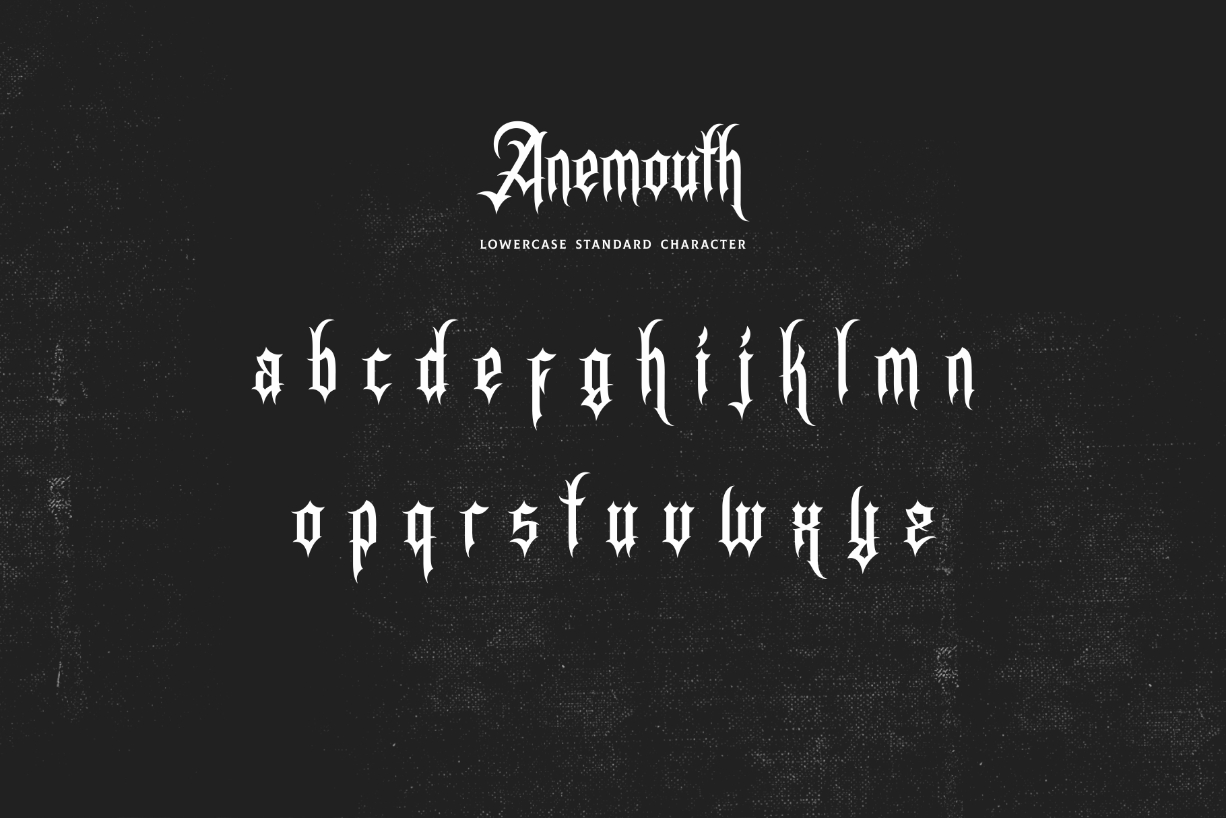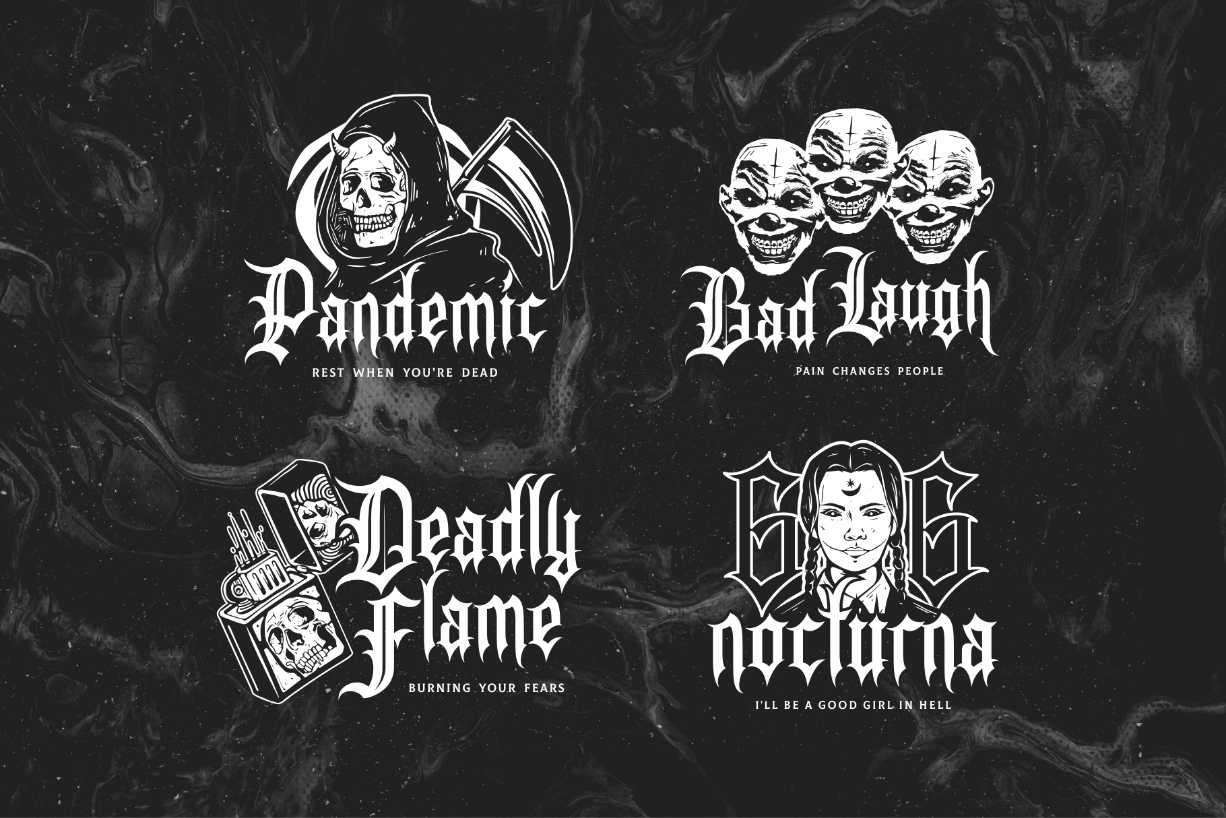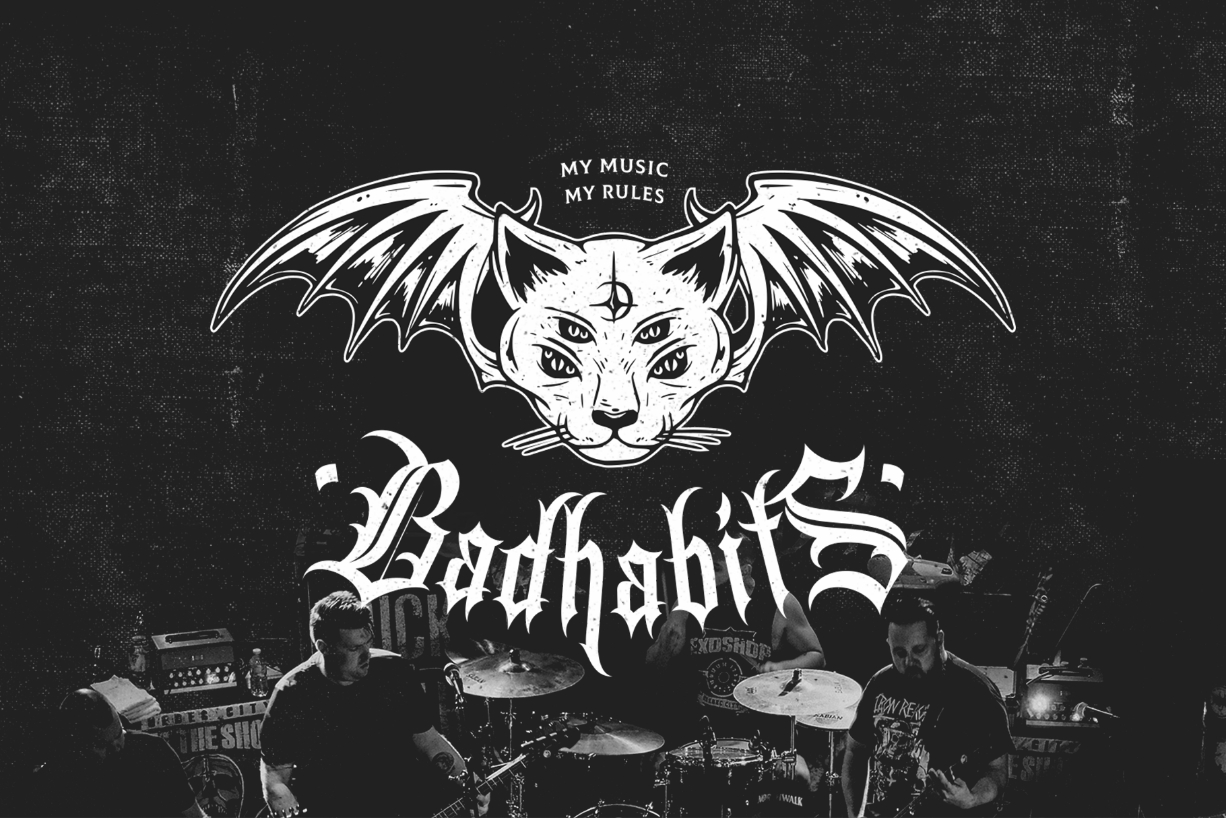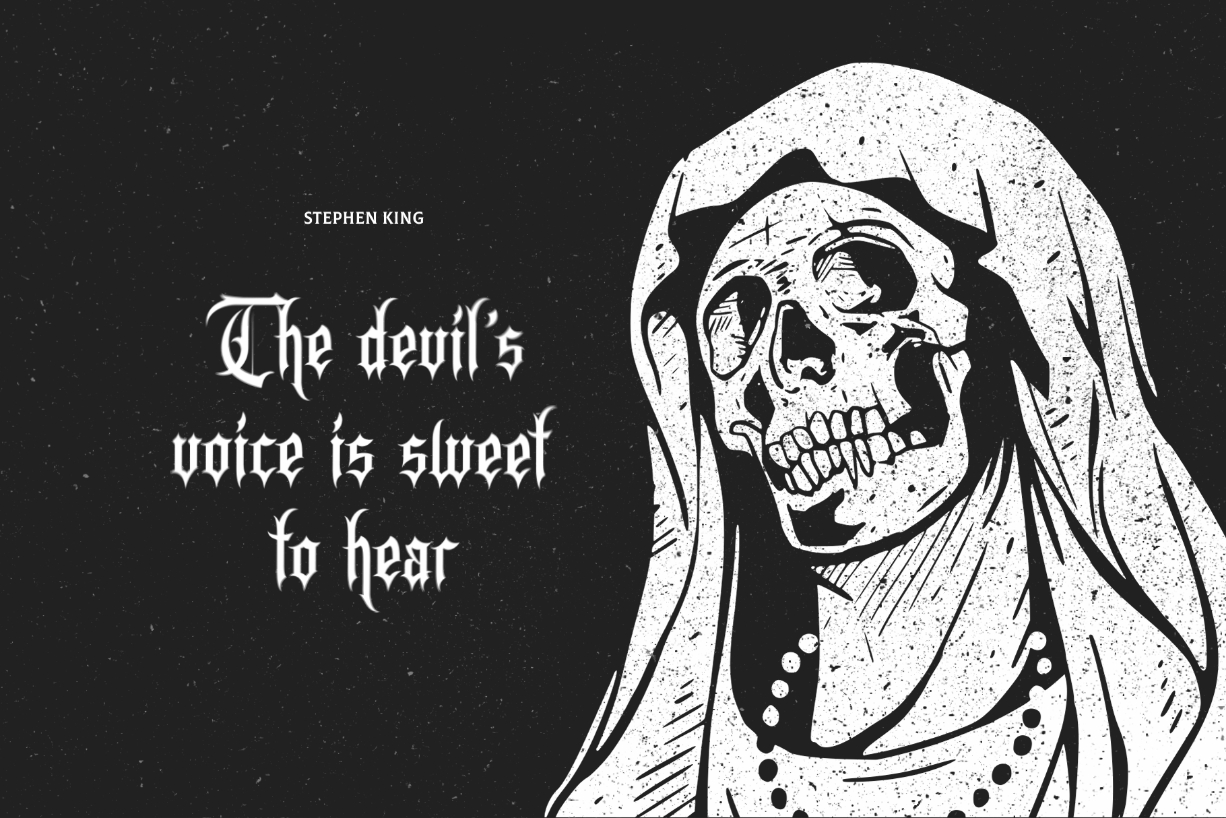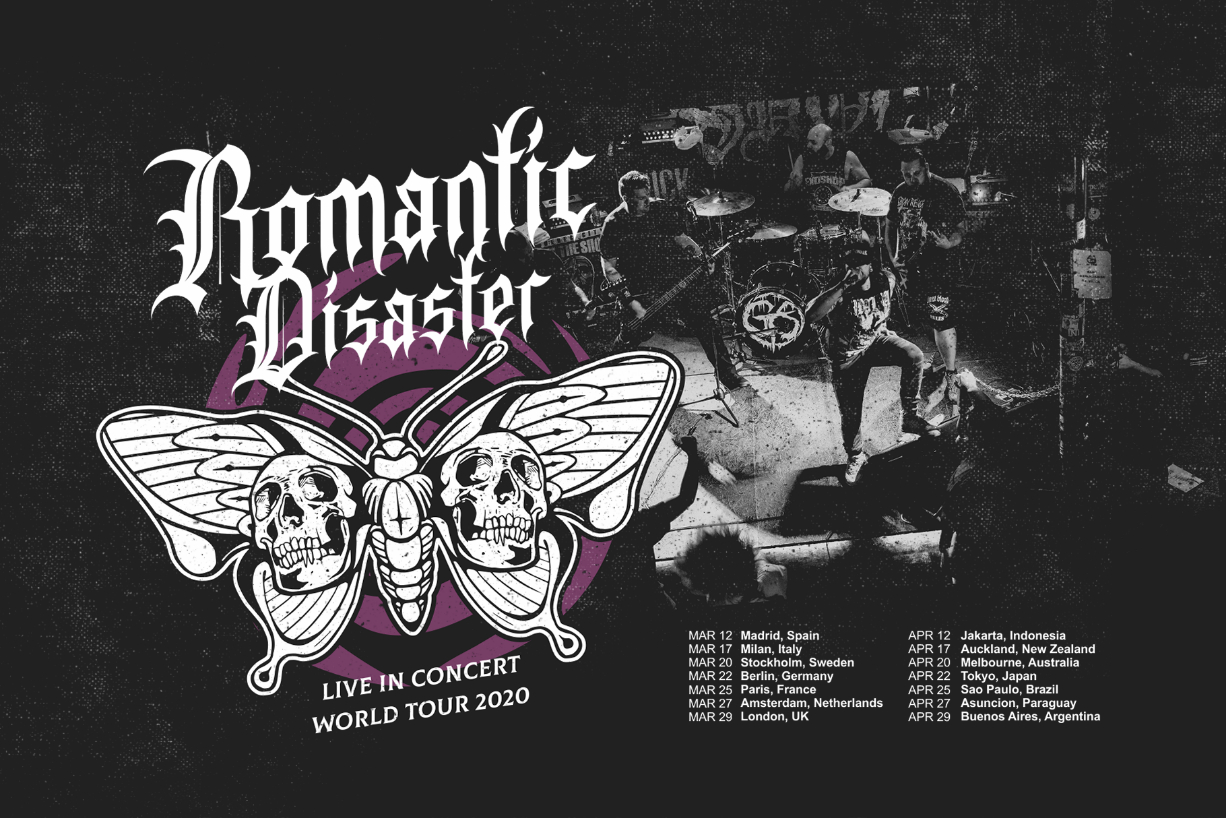
Anemouth Font
About Anemouth Font
Anemouth is an incredibly daring and strong lettered blackletter font. Use this font for your designs and explore its endless possibilities.